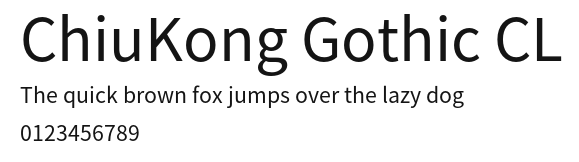
ChiuKong Gothic CL Preview
• Font Name: ChiuKong Gothic CL
• Designer: Ryoko NISHIZUKA 西塚涼子 (kana, bopomofo & ideographs); Paul D. Hunt (Latin, Greek & Cyrillic); Sandoll Communications 산돌커뮤니케이션, Soo-young JANG 장수영 & Joo-yeon KANG 강주연 (hangul elements, letters & syllables)
• Manufacturer: Adobe
• Description: Dr. Ken Lunde (project architect, glyph set definition & overall production); Masataka HATTORI 服部正貴 (production & ideograph elements)
About ChiuKong Gothic CL.otf
ChiuKong Gothic CL.otf is a modern, elegant sans-serif font designed for ultimate readability and visual harmony. Perfect for branding, headlines, web design, and print materials.